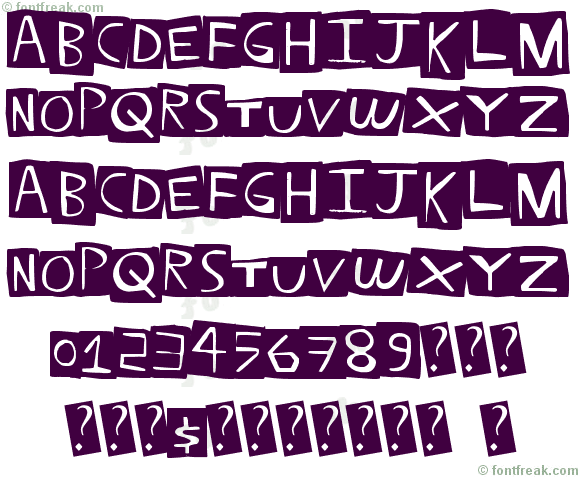
StraightBaller
About StraightBaller
StraightBaller, crafted by XEROGRAPHER FONTS in 2012, is a distinctive display font that captures attention with its unique visual flair. This font features a playful, hand-drawn style that exudes an informal yet striking character. The irregular stroke weight and whimsical shapes create a dynamic look, making it ideal for projects that demand a bold statement. The letters exhibit slight inconsistencies, lending a human touch that enhances its charm. The spacing is relatively loose, which contributes to its legibility while maintaining a fun aesthetic.
This font is particularly suited for a variety of creative applications. It shines in contexts such as promotional materials for events like music festivals, where its energetic vibe can effectively convey excitement. Additionally, StraightBaller is perfect for restaurant menus, especially those aiming for a casual dining atmosphere, as it can evoke a sense of warmth and approachability. Graphic designers might also find it ideal for crafting eye-catching logos or branding materials that require a distinct personality. Furthermore, it can elevate wedding invitations, offering a modern twist while still retaining a heartfelt feel.
Targeting graphic designers, small business owners, and content creators, StraightBaller appeals to those looking to make an impression without sacrificing readability. The font's quirky elements make it versatile enough to adapt to various themes and industries, from artsy boutiques to family-oriented brands.
What truly sets StraightBaller apart is its ability to blend playfulness with practicality, making it a go-to choice for anyone seeking to infuse their designs with character. With a StraightBaller font free download available, you can easily incorporate this compelling typeface into your next project, ensuring that your designs stand out in a crowded market.